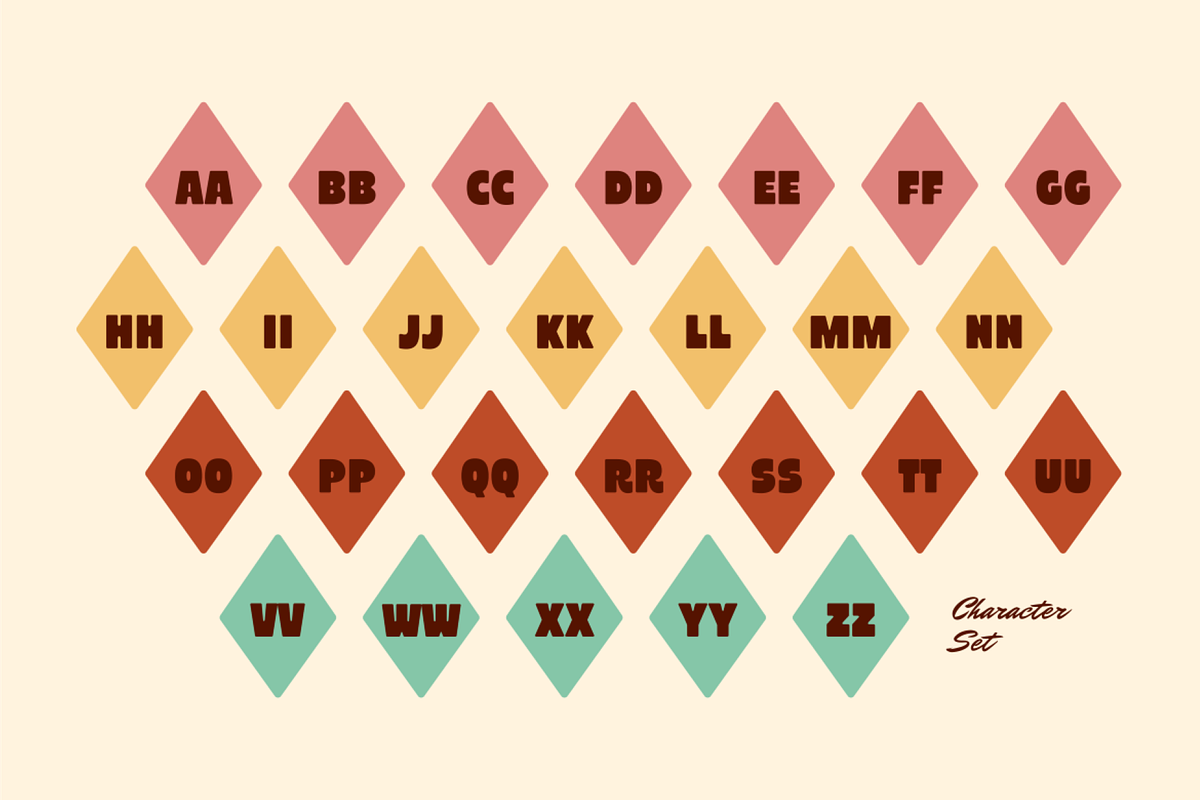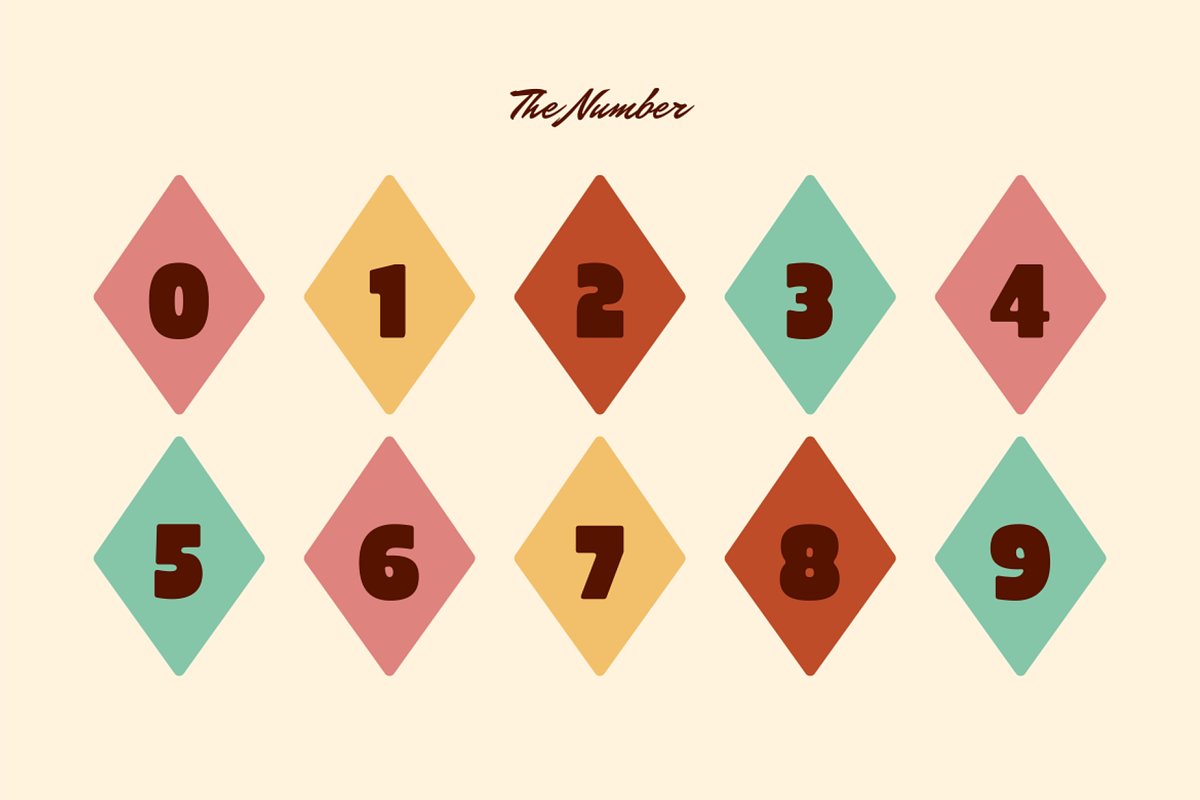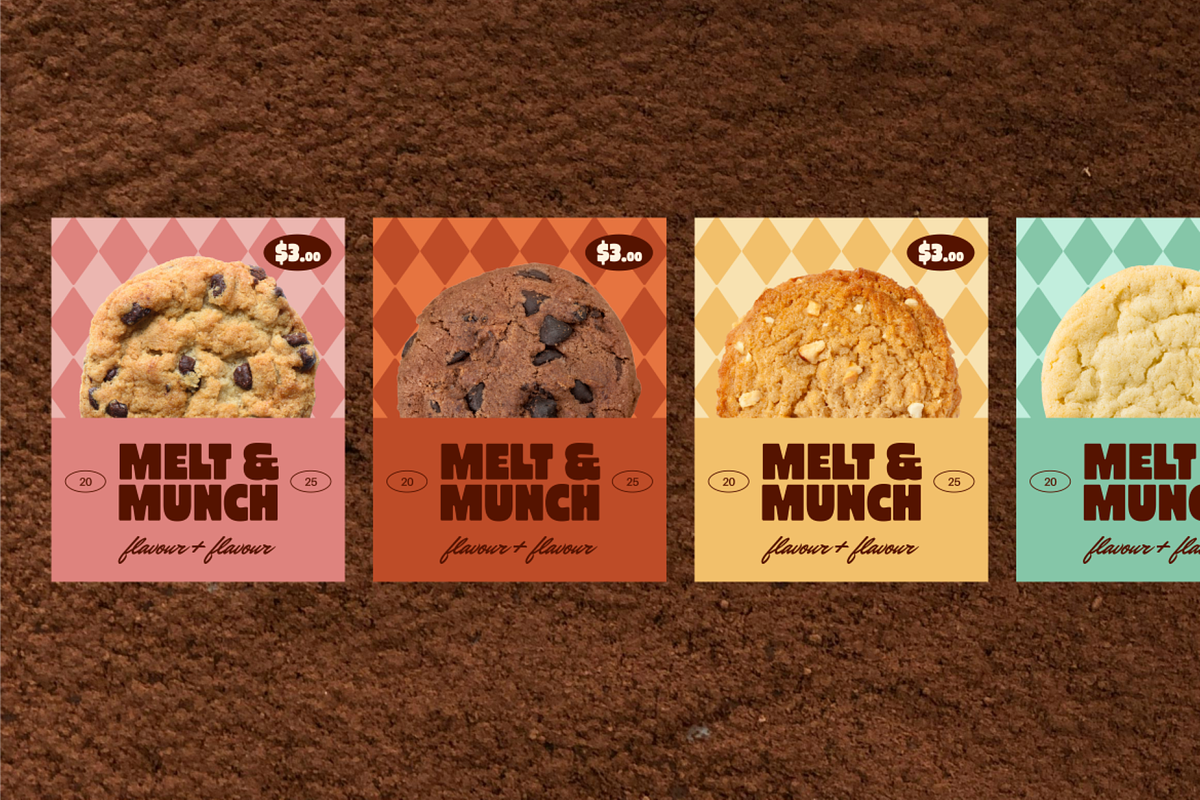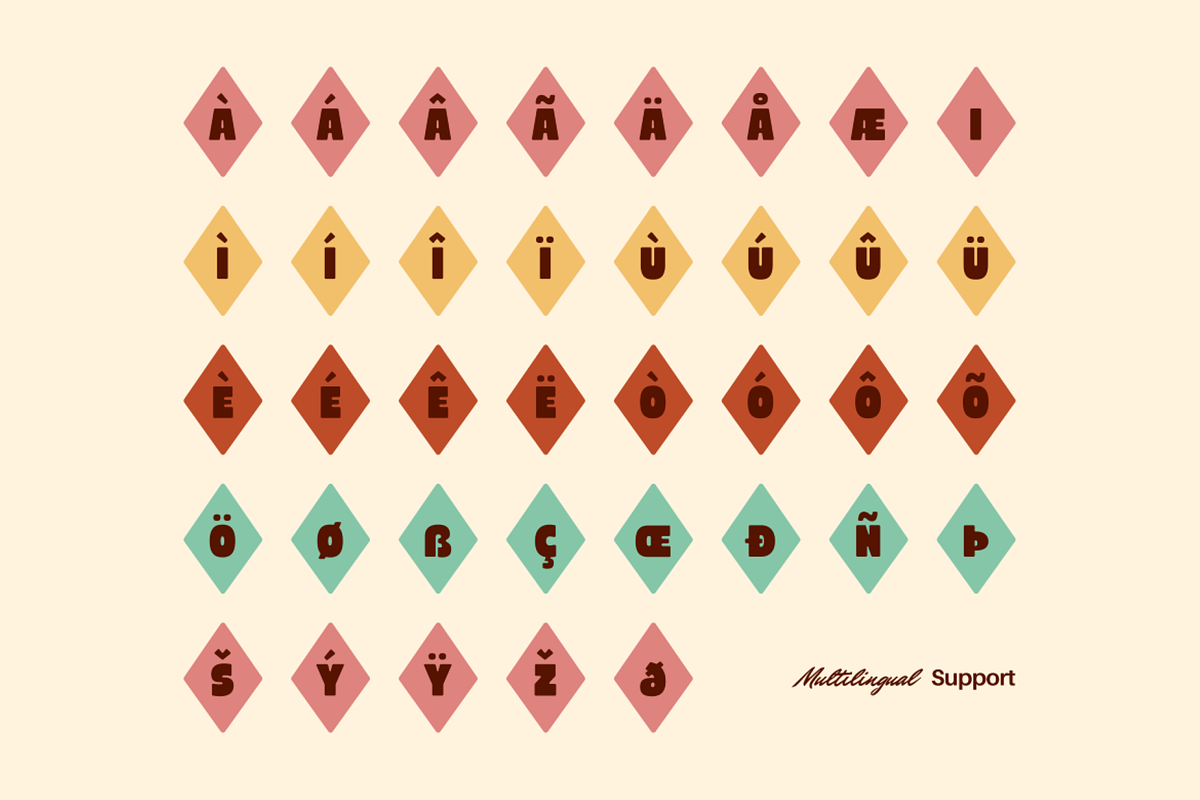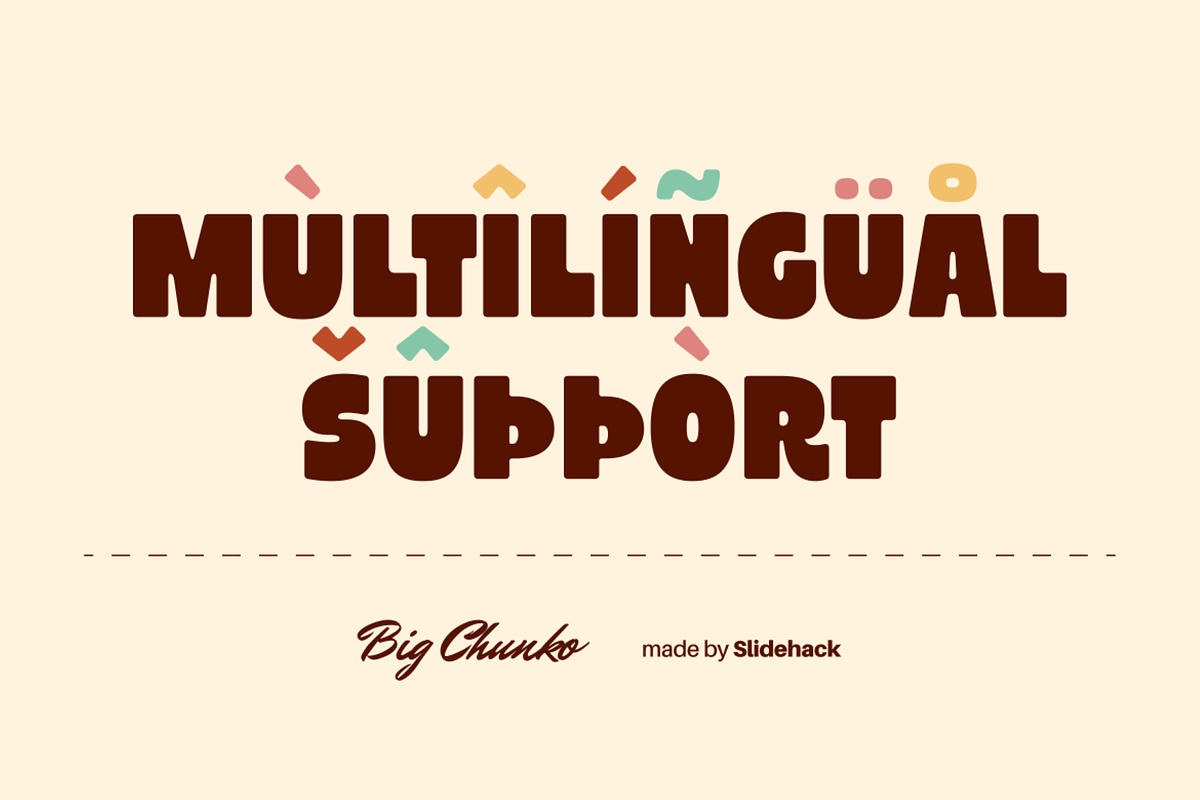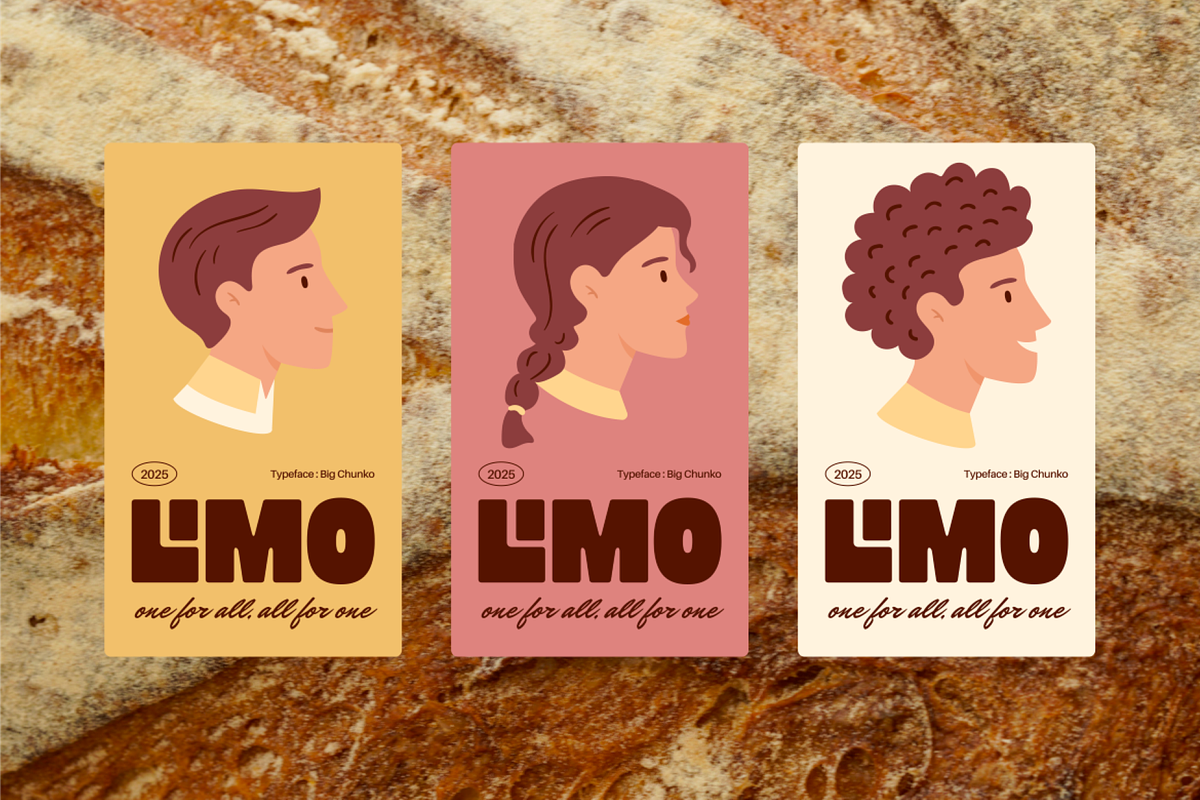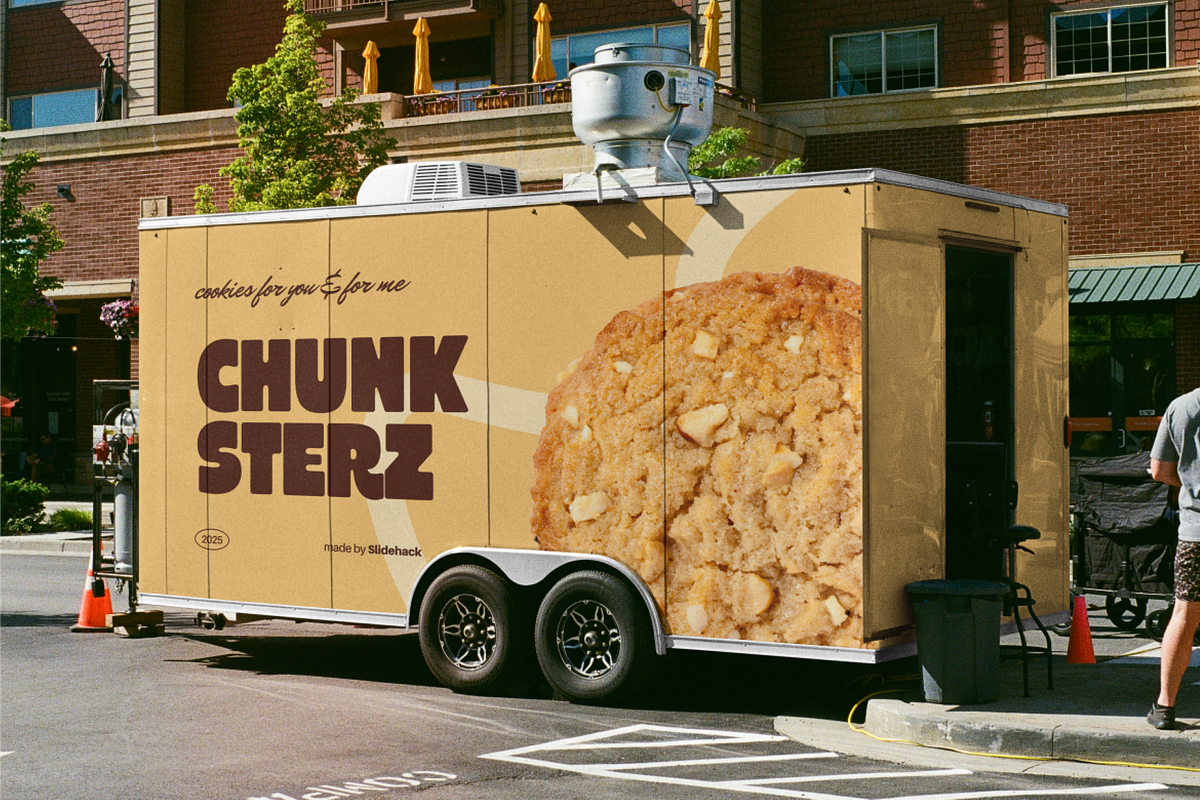
Big Chunko - Bold Display Font
Big Chunko is a bold display font with a playful retro vibe, perfect for posters, headlines, branding, and social media. Its chunky letterforms make your design stand out with strong personality. Ideal for creative projects, modern typography, and eye-catching layouts that need fun, unique, and stylish text.